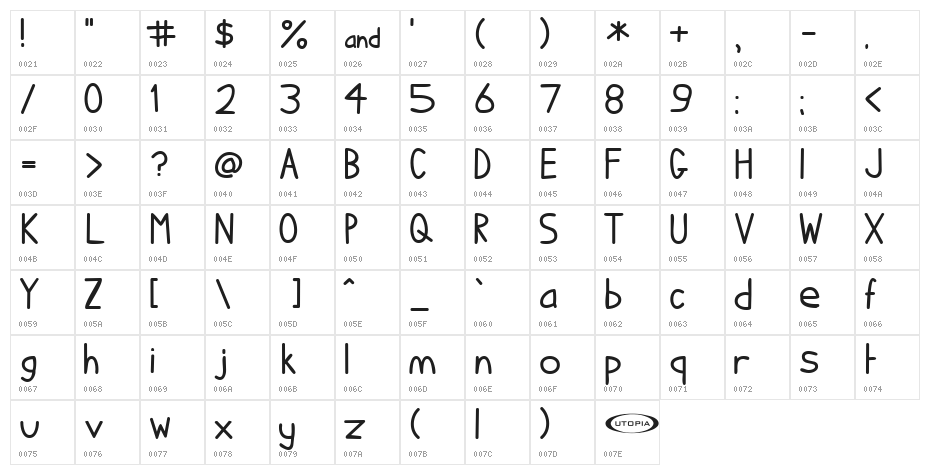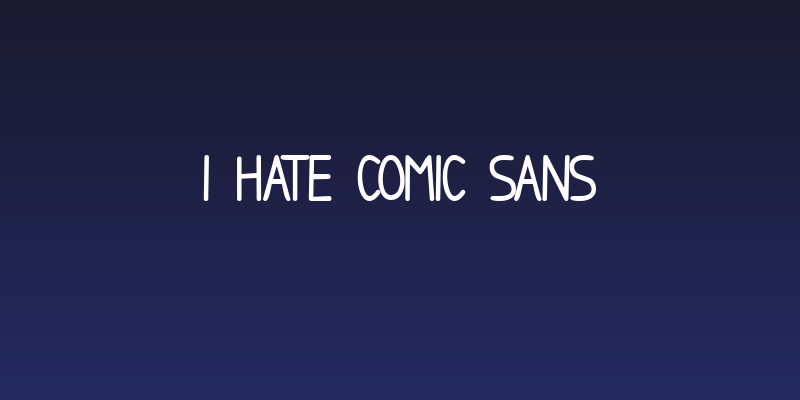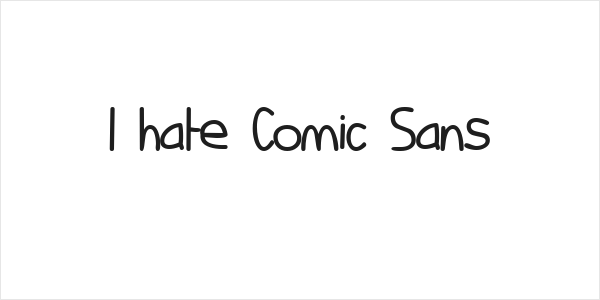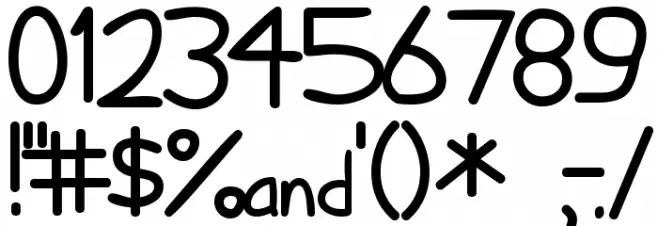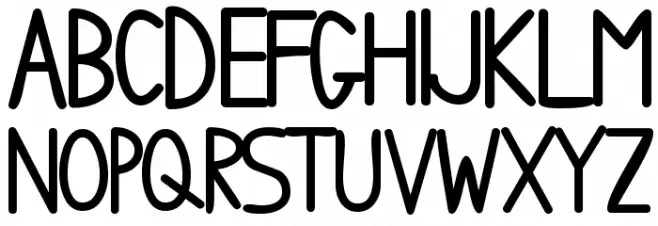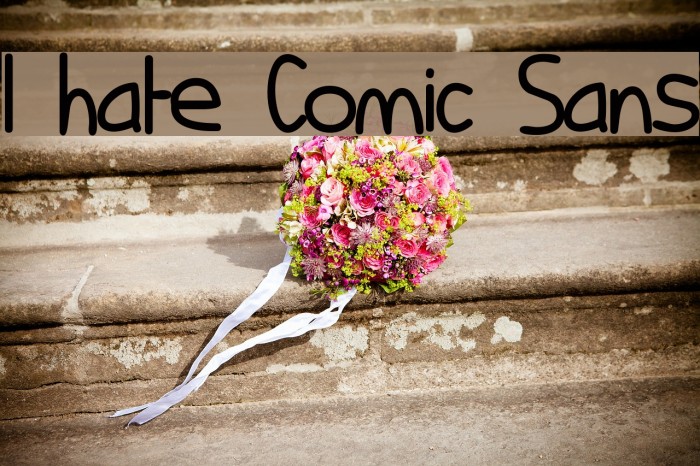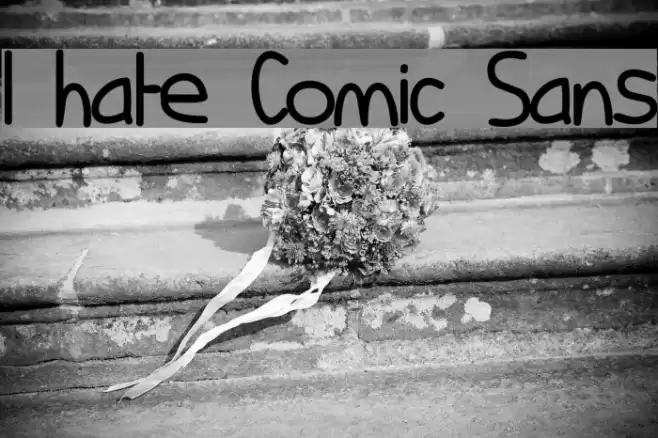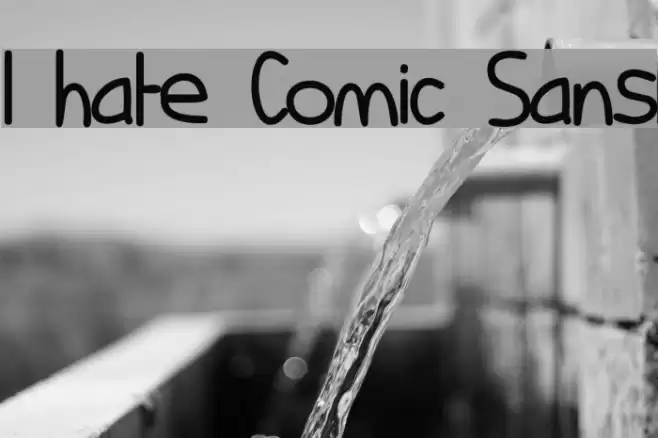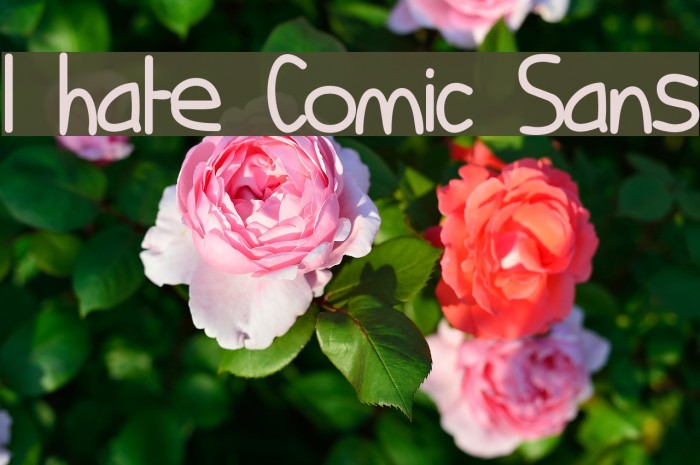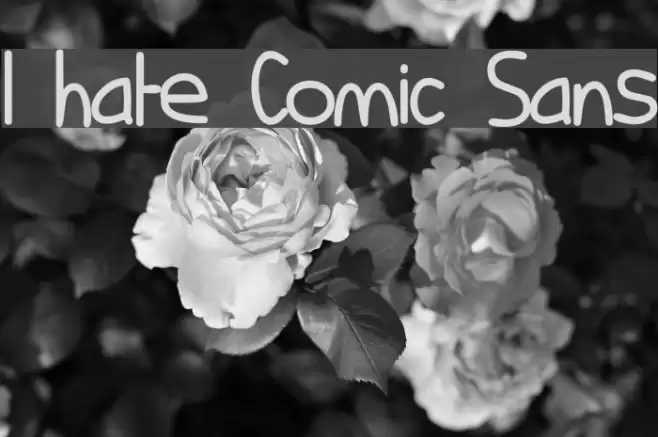
I hate Comic Sans Font
| 全体的なスタイル | Casual |
| 用途 | Headlines, Informal text, Children's materials |
| おすすめプロジェクト | Ideal for children's books, comic strips, casual invitations, and playful branding. |